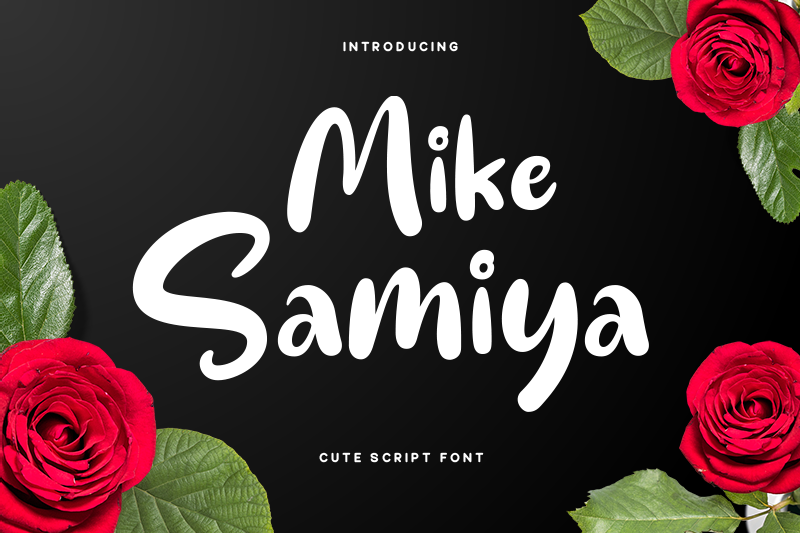
Preview and download Mike Samiya Font. Created by Akhmad Reza Fauzi in Script Various styles with Free for personal use license.
Font name: | Mike Samiya |
Author: | Akhmad Reza Fauzi |
This font is for PERSONAL USE ONLY! Mike Samiya is a cool and powerful script font with incredibly authentic lettering. Use it to turn any design idea into a true standout! --------------------------------------------------------- Any DONATION will be appreciated https://www.paypal.me/akhmadrezafauzi Purchase COMMERCIAL LICENSE: https://grezlinestudio.com/product/mike-samiya-font/ Visit my store for special price and discount : https://grezlinestudio.com If you have any questions, feel free to contact me : grezline.studio@gmail.com |